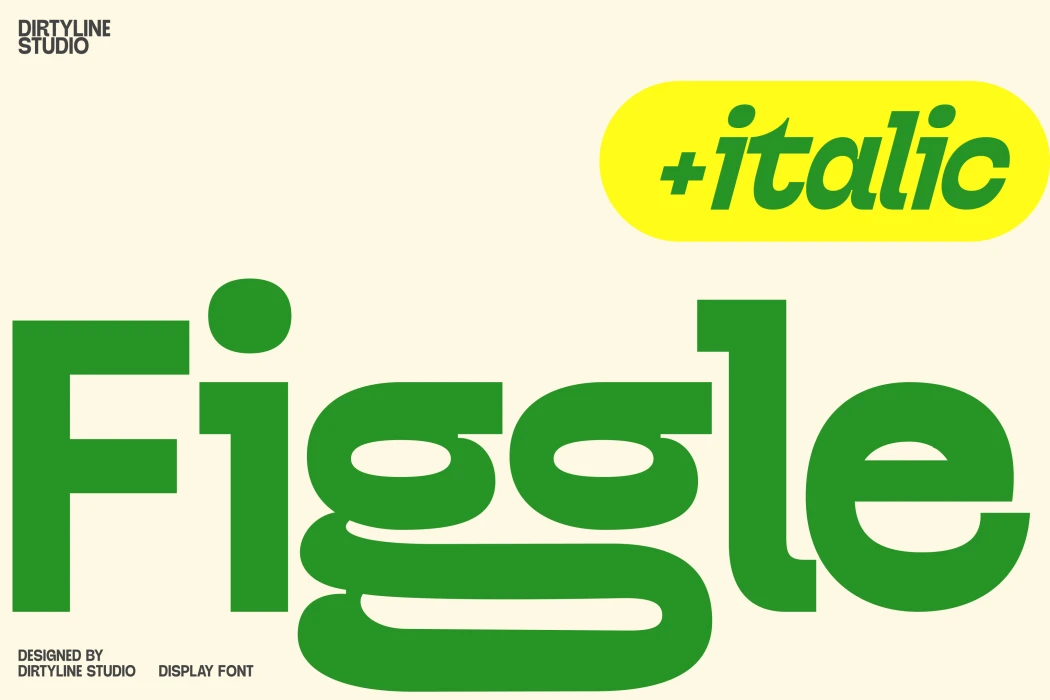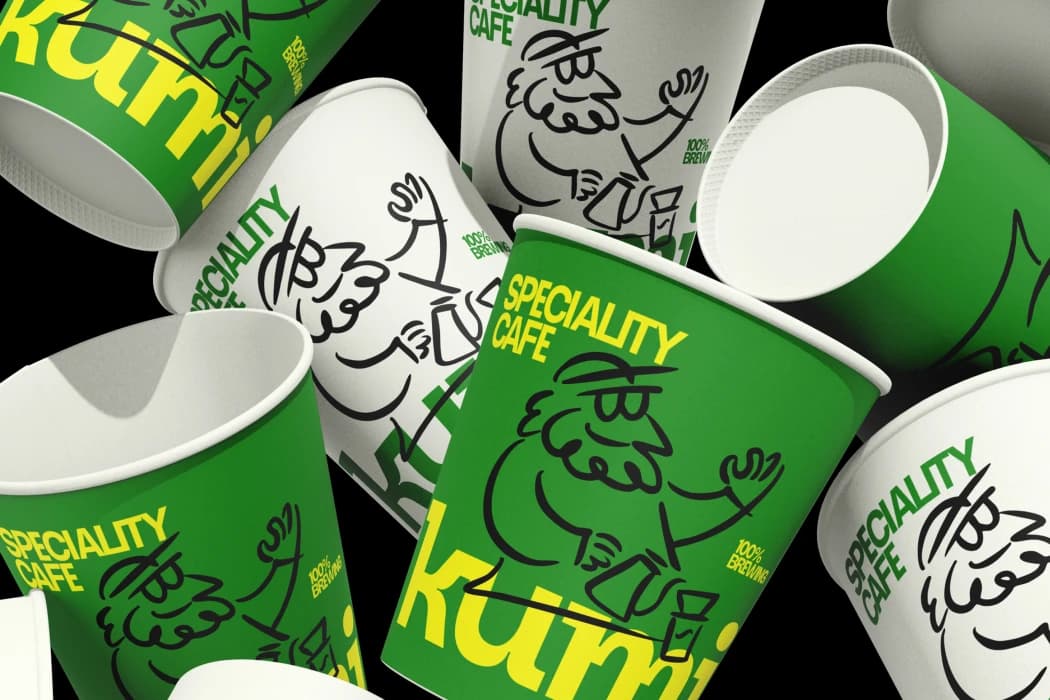
Dx Figgle Free Font
Dx Figgle is a playful and expressive display font featuring bold curves, quirky proportions, and a handcrafted personality that instantly grabs attention.
Dx Figgle is a playful and expressive display font featuring bold curves, quirky proportions, and a handcrafted personality that instantly grabs attention. Its energetic letterforms and retro-inspired styling make it a reasonable choice for designing posters, branding, packaging, social media graphics, children’s designs, and creative editorial projects. The font balances fun character with modern readability, allowing designers to create eye-catching typography with a unique visual identity. Perfect for projects that require a bold, cheerful, and unconventional typographic style.